A logo font has one job most body-text fonts never have to do: hold up at 24px on a phone screen and 20 feet tall on a storefront sign. These ten are built for that kind of range. If you’ve been searching for free fonts for logo, these picks are curated with exactly that in mind.
| Bebas Neue | Condensed all-caps display | Minimal, tight wordmarks |
| Archivo Black | Ultra-heavy grotesque | Short, bold brand names |
| Oswald | Condensed sans | Industrial, signage-style branding |
| Anton | Ultra-condensed display | Sports and high-impact branding |
| Righteous | Rounded retro-futuristic display | Playful, retro brands |
| Fjalla One | Condensed sans | Balanced, general-purpose wordmarks |
| Alfa Slab One | Heavy slab serif | Vintage, rustic branding |
| Rubik | Rounded geometric sans | Tech and app logos |
| Bungee | Urban display | Youthful, energetic brands |
| Cinzel | Classical Roman-inscription serif | Luxury, heritage brands |
Bebas Neue
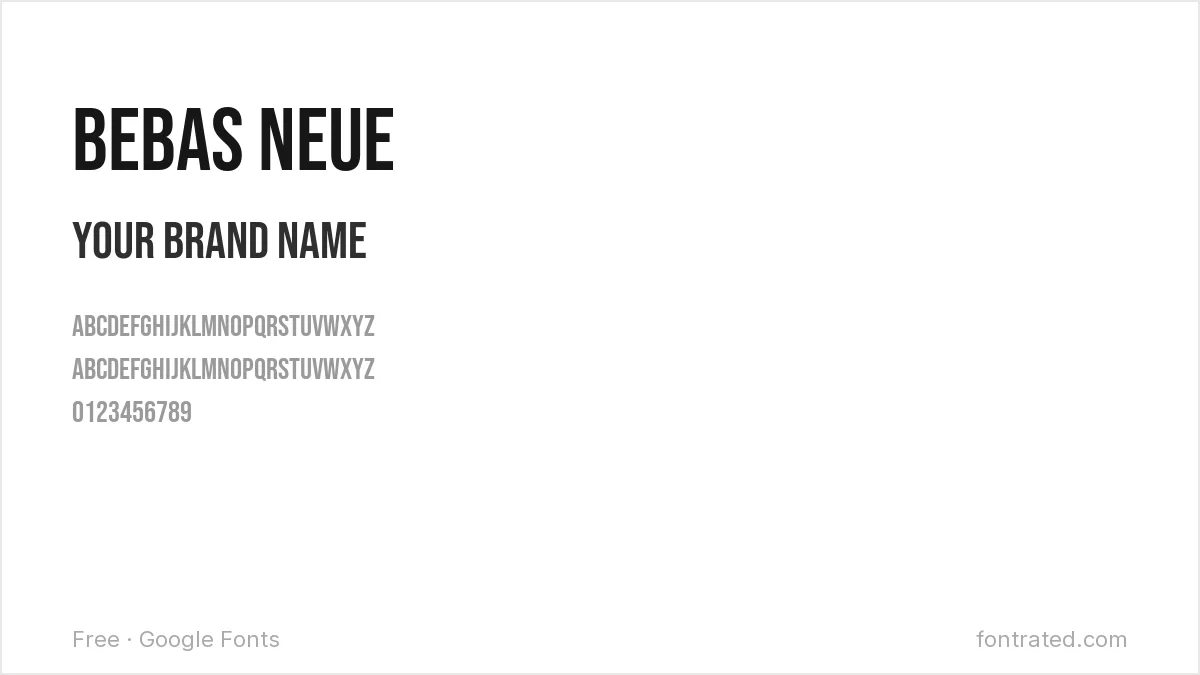
A tall, condensed, all-caps display font with no lowercase at all. It’s become a default for minimal wordmarks because it takes up almost no horizontal space while staying loud.
Archivo Black
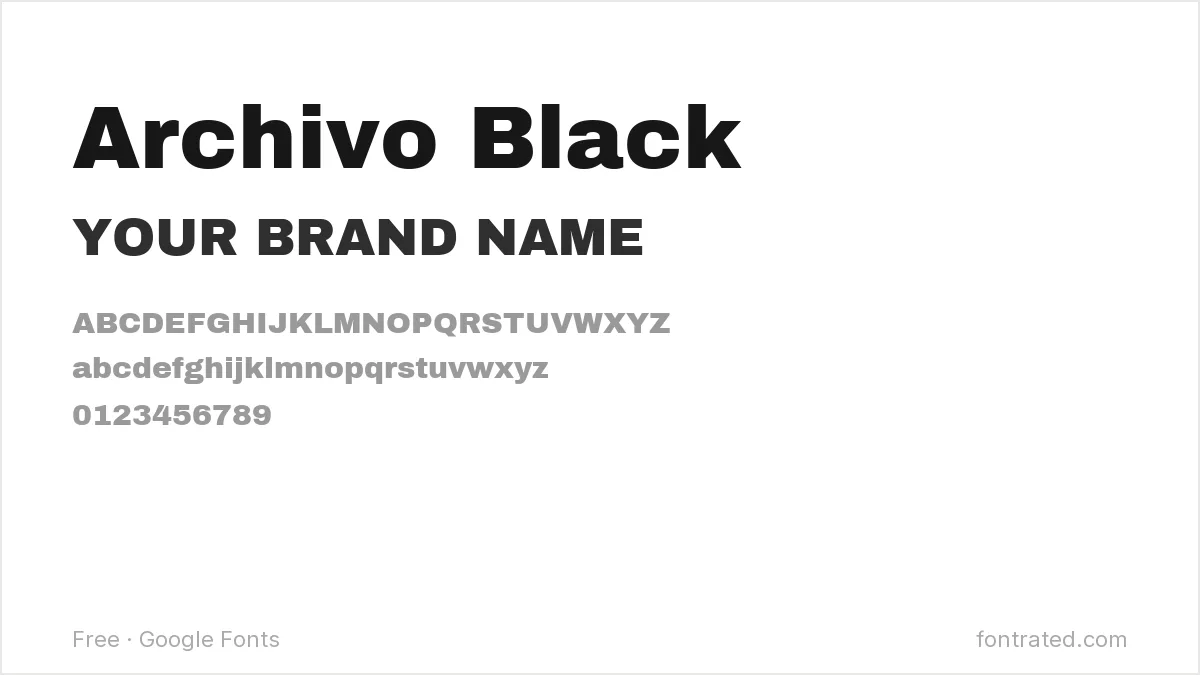
An ultra-heavy grotesque with almost no daylight inside its letterforms. Best for short names — it gets visually heavy fast in long words.
Oswald
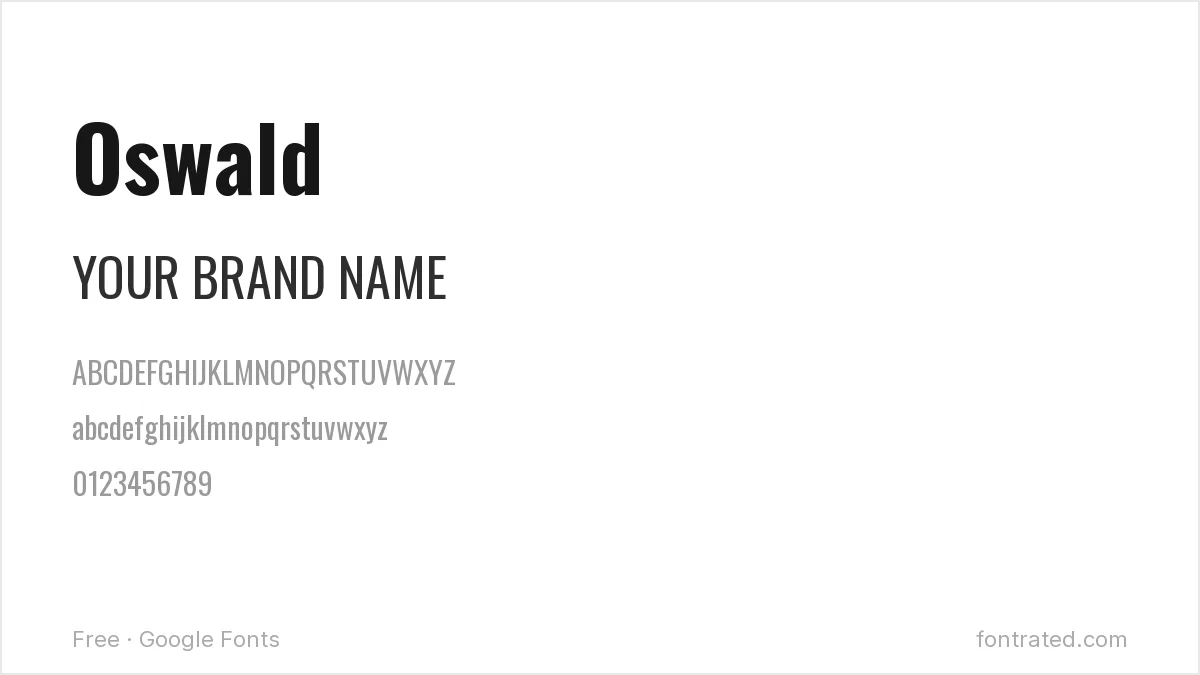
A condensed sans reworked from classic gothic sans typefaces like Alternate Gothic, Oswald has the confident, slightly industrial feel of old American signage.
Anton
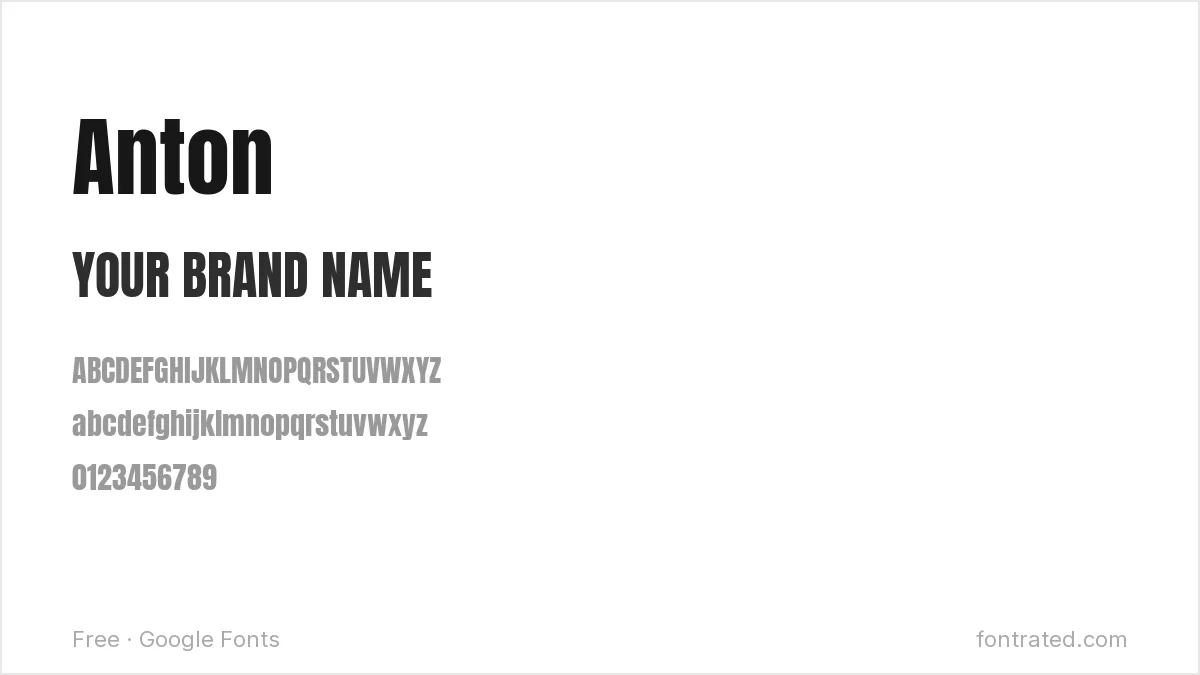
Even more condensed and heavier than Bebas Neue, Anton is built for maximum impact in minimum space — think sports team branding and bold headline logos.
Righteous
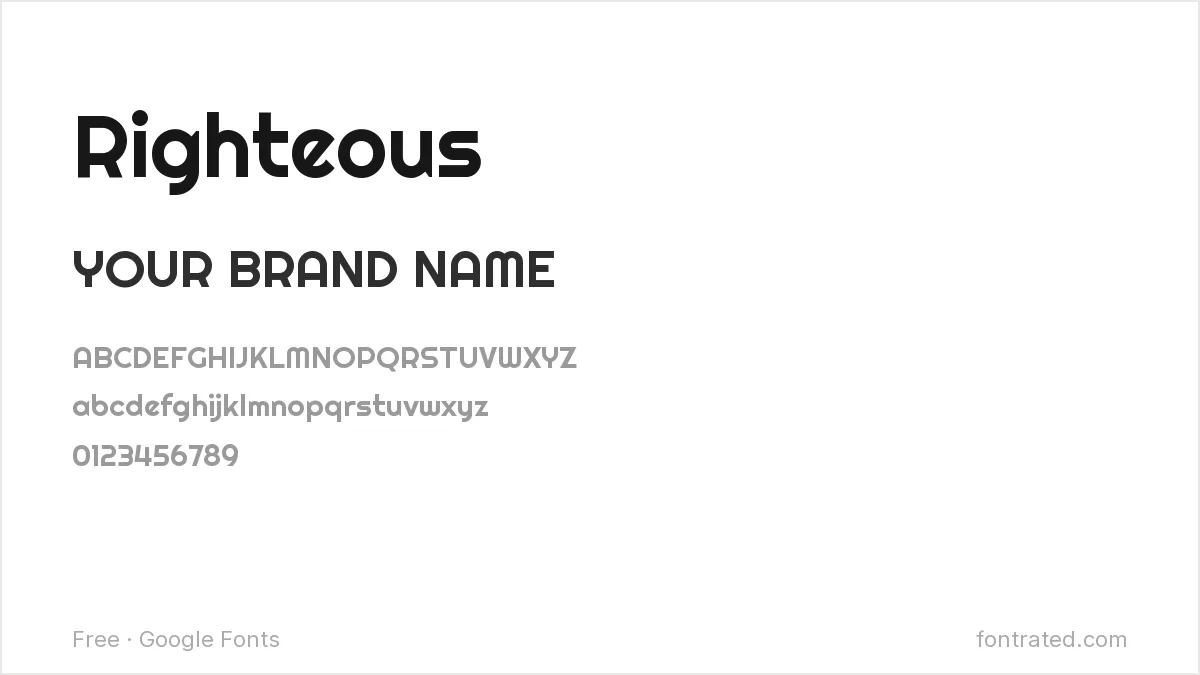
A rounded display font with a slightly retro-futuristic feel, borrowed from 70s signage. Good for playful or nostalgic brands that don’t want to look like a tech startup.
Fjalla One
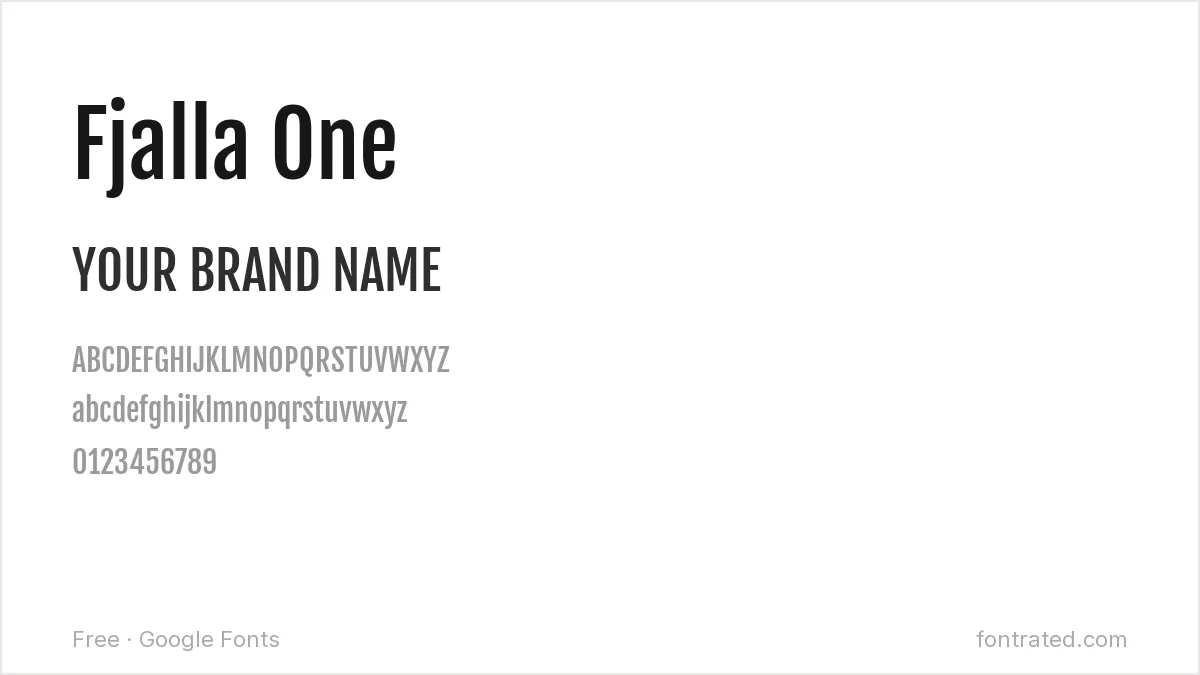
A condensed sans with sturdy, no-nonsense proportions — narrower than Oswald but less severe than Anton, sitting in a useful middle ground.
Alfa Slab One
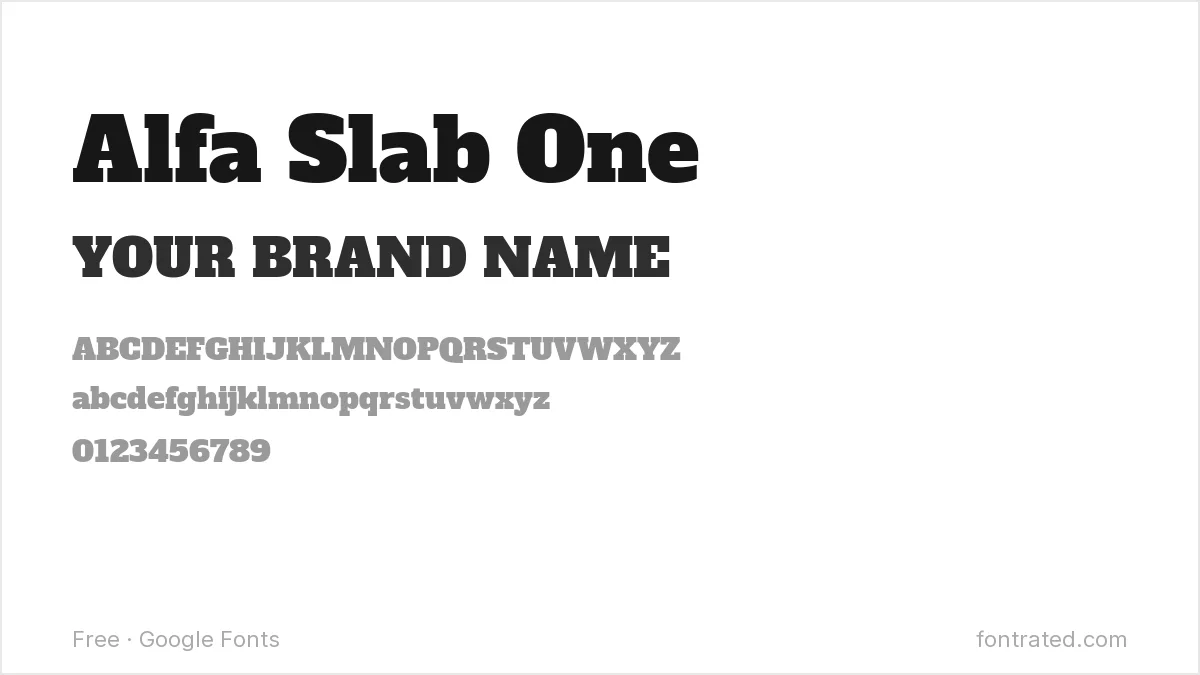
A heavy slab serif with thick, blocky serifs. Works well for brands leaning into a vintage, hand-carved, or rustic identity.
Rubik
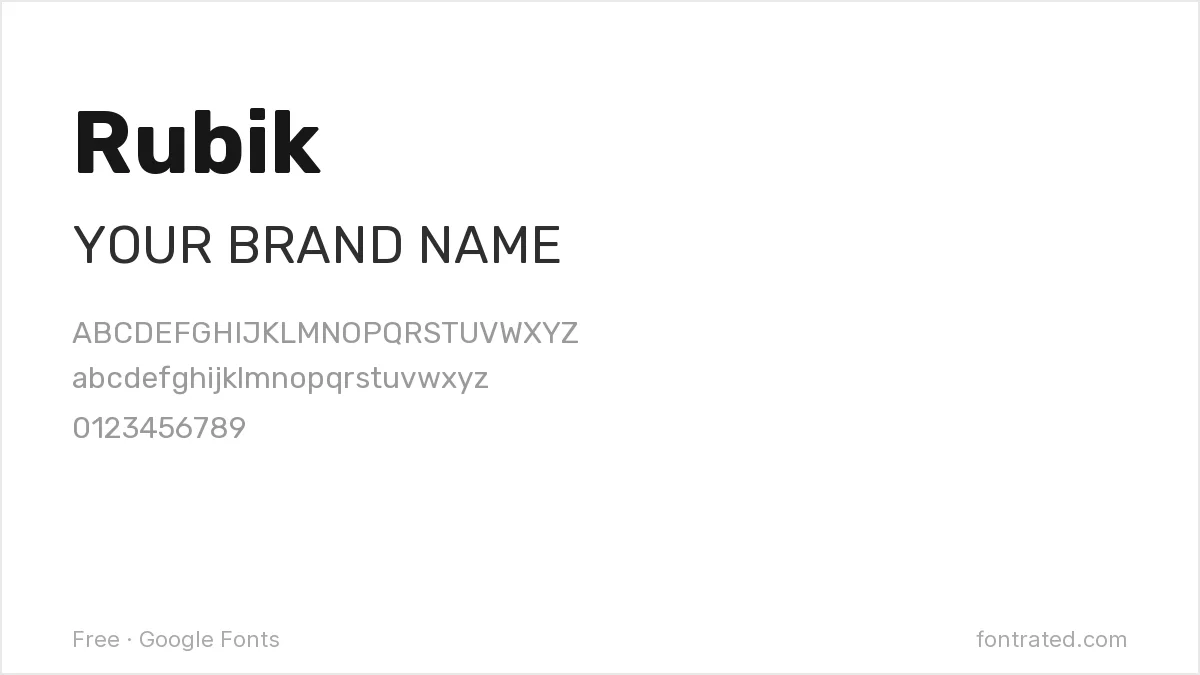
A geometric sans with subtly rounded corners on otherwise sharp shapes — reads as modern and approachable without being generic, a common choice for tech and app logos.
Bungee
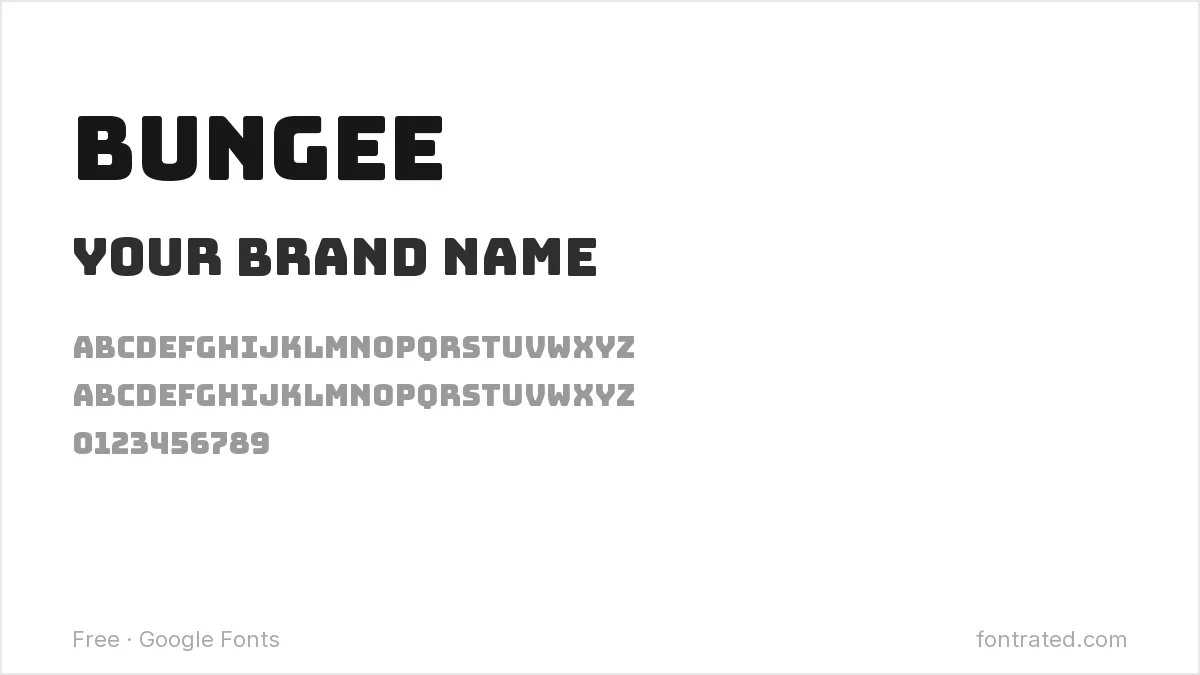
Inspired directly by urban street signage, Bungee has thick, confident strokes built for maximum visibility. Suits youthful, energetic brands that want to stand out rather than blend in.
Cinzel
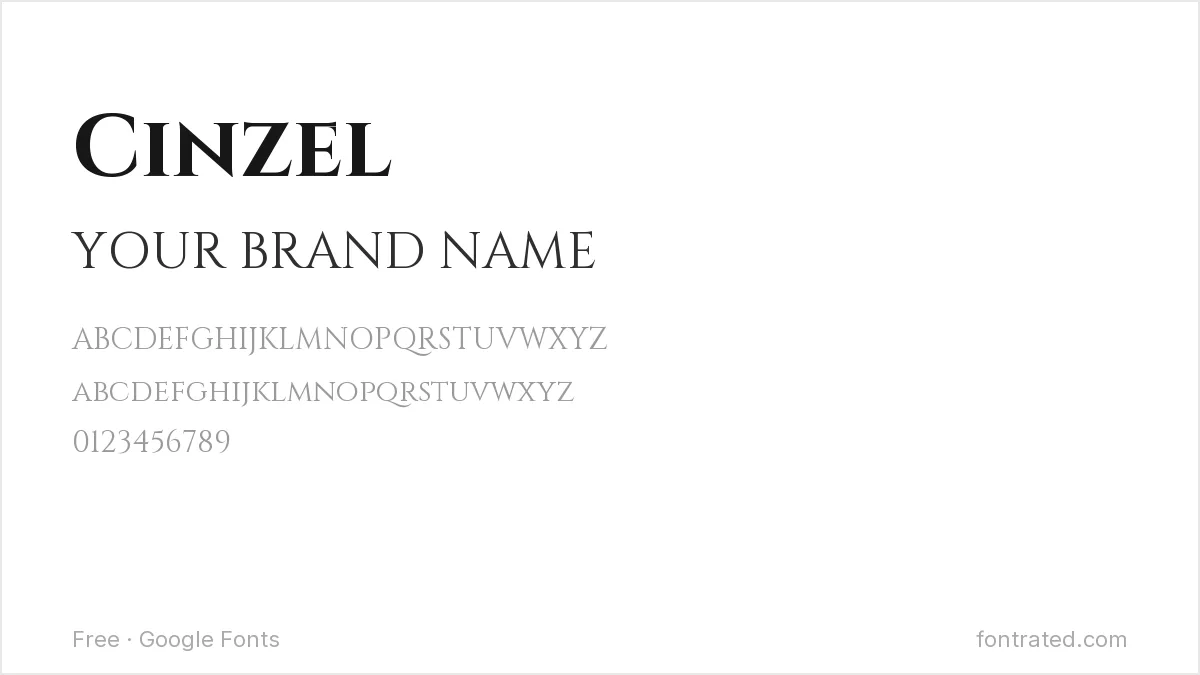
Modeled on classical Roman inscriptional capitals, Cinzel signals heritage, permanence, and formality — a strong pick for law firms, wineries, or luxury goods.
Before you commit: test your name in all caps and lowercase, and at both a 32px favicon size and a full-width banner. A surprising number of “great” logo fonts fall apart at one end of that range.
What’s the difference between using a font directly and having a custom logotype designed?
These fonts work well as a starting point or a fast, functional wordmark, but a font alone won’t be unique to your brand — any competitor can use the same one. A custom logotype (a designer modifying letterforms specifically for you) is what actually becomes ownable, distinctive brand property.
Should I convert the font to outlines before finalizing my logo?
Yes, for print or vector use. Converting text to outlines (curves/paths) in Illustrator or similar software locks in the exact shapes so the logo displays correctly on any device, even one that doesn’t have the font installed.